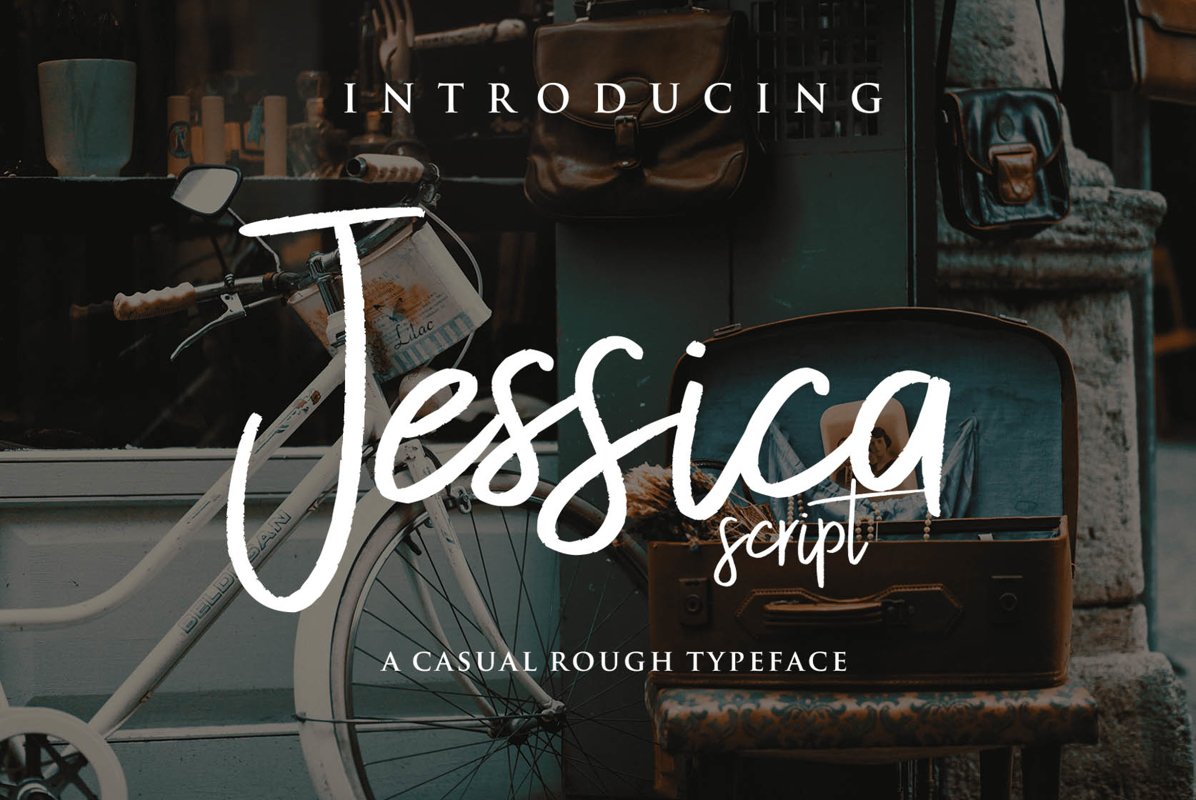
Jessica Script is handmade Casual brush Script . Very Suitable for logos, name tag, handwritten quotes, product packaging, merchandise, social media & greeting cards. It contains a full set of lower & uppercase letters, a large range of punctuation, numerals, and multilingual support.Whats Include :